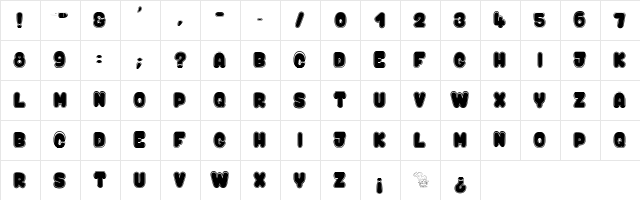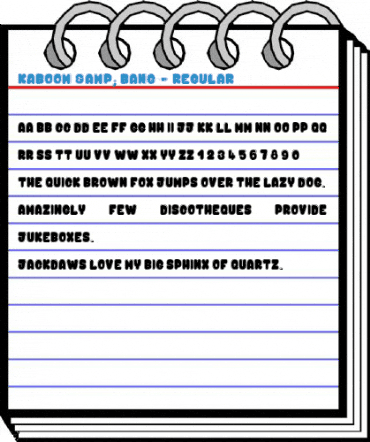
Complete Kaboom & Bang$ Regular glyph index. Displaying only characters natively supported by Kaboom & Bang$ Regular font.
Kaboom & Bang$ is a composed and adaptable typeface that performs quietly and consistently across a wide range of design contexts.